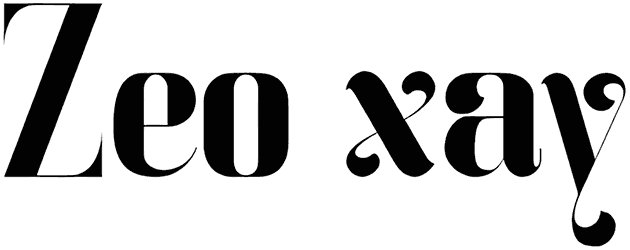
Zeo xay Font
Zeo Xay is a timeless serif font that very well elicits an exclusive kind of sincerity, professionalism, vintage, and confidence.
This retro font comes with full details, so it can be easily set on a wide range of visual content, ranging from movie posters, presentations, magazines, book covers, or brand descriptions. If you require another font in the same category, we strongly recommend you take a look at our glamorous collection.